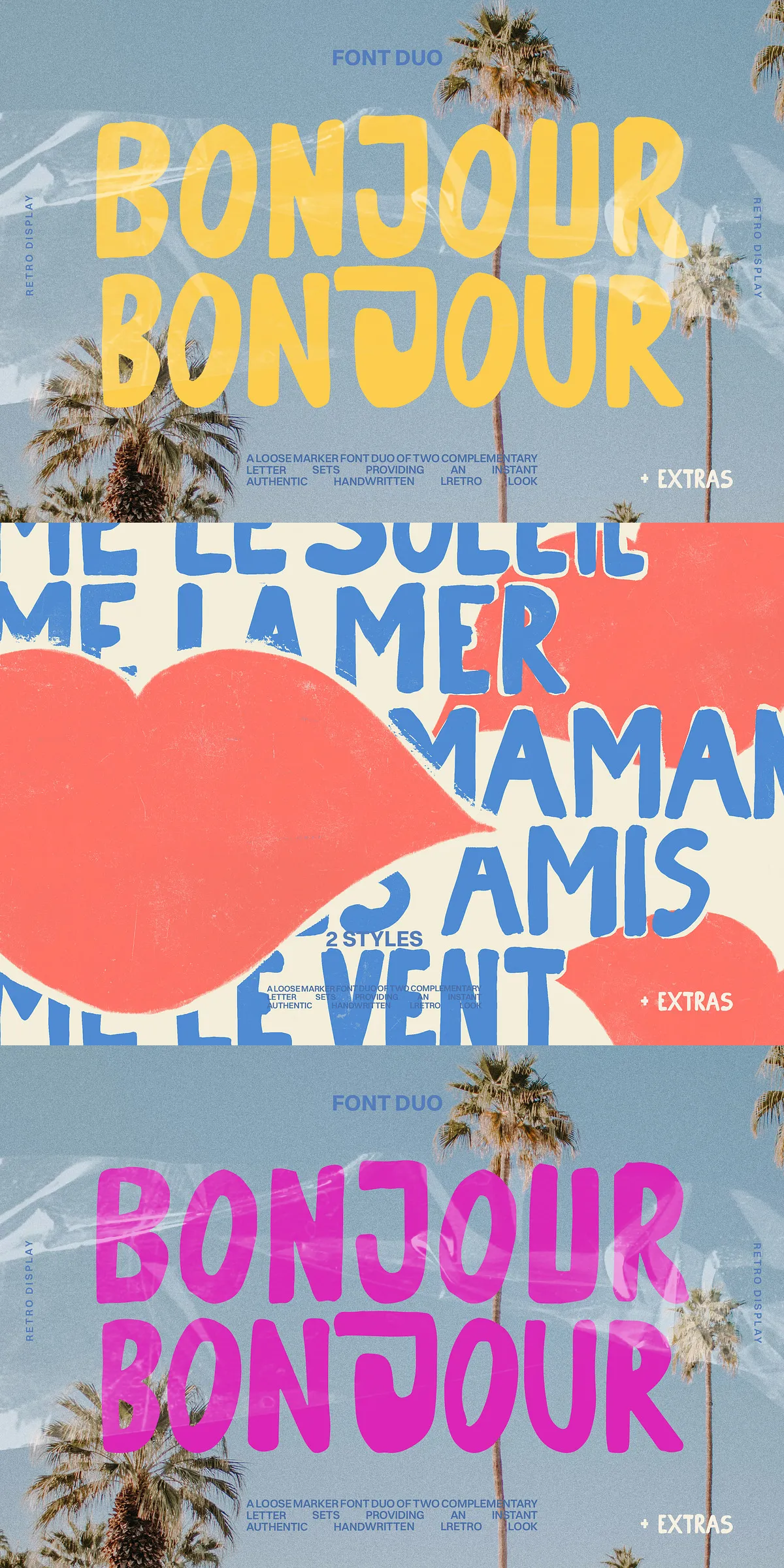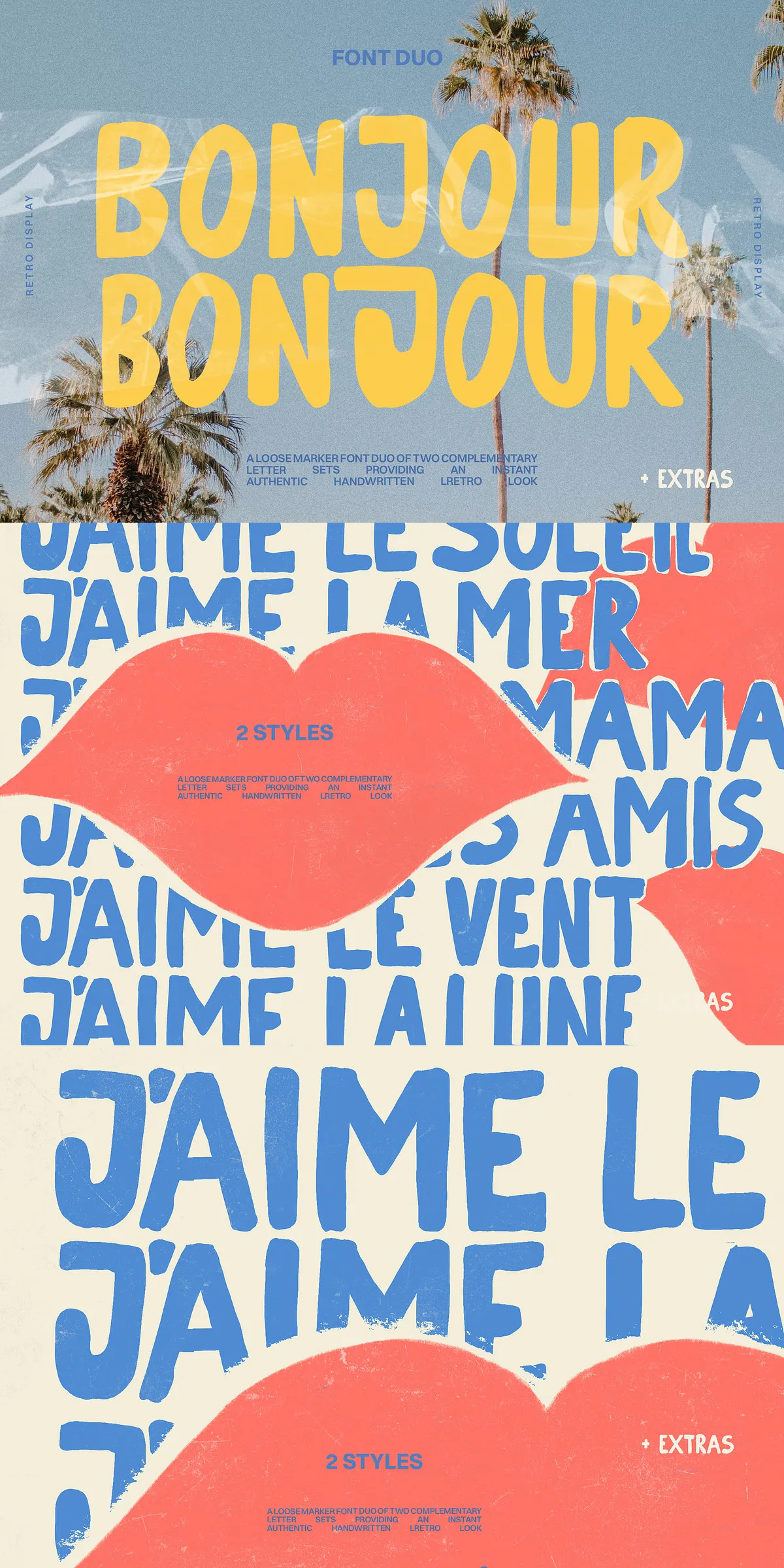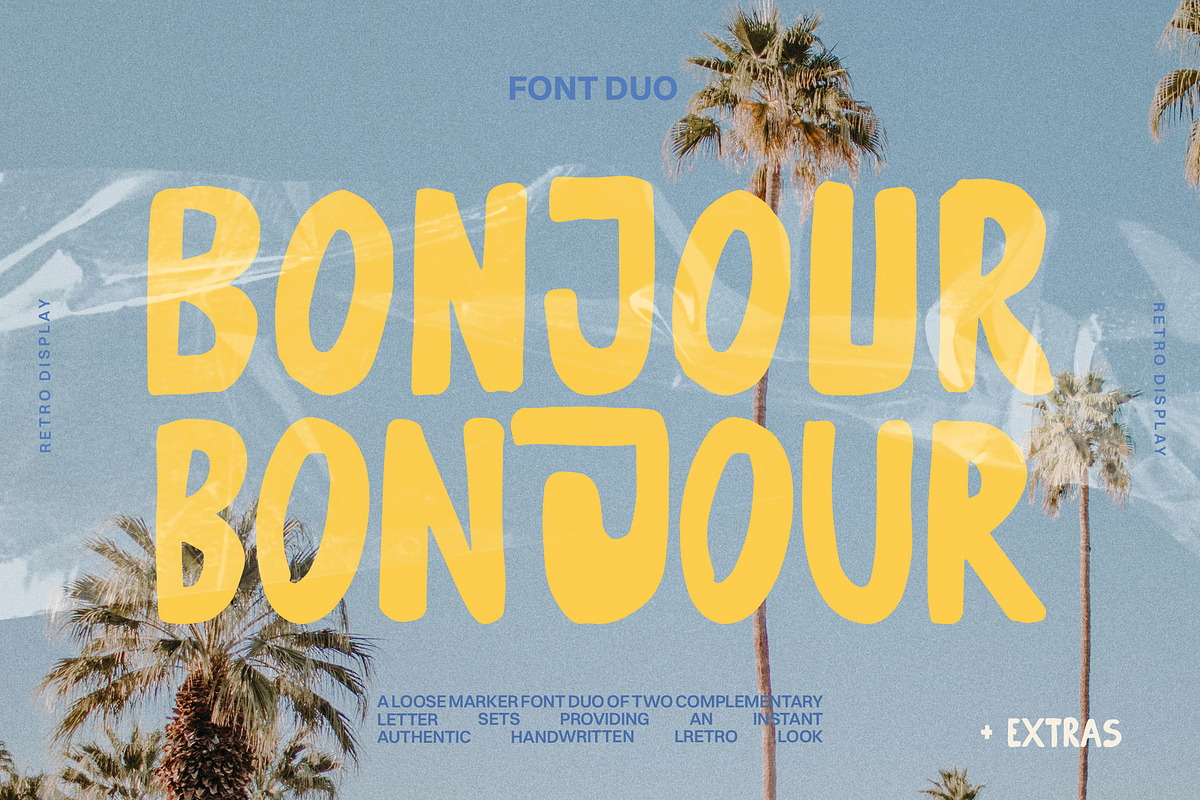
Handmade Retro Marker Font Duo
Ready to infuse your designs with instant personality and that unmistakable ‘handmade’ charm? Meet Bonjour & Bonjour — a vibrant, all-caps marker font duo crafted to transform any text into authentic, eye-catching hand-lettering. Born from a love of expressive typography and creative spontaneity, this font duo is engineered for designers who crave that instantly trendy, effortlessly cool vibe — no skills required.
Whether you’re designing a bold concert poster, launching a fashion brand, creating social media content, or crafting a fun T-shirt design, Bonjour & Bonjour delivers a bold, confident look that turns heads. Its dynamic strokes and playful imperfections mimic the real feel of a marker on paper — messy where it should be, expressive where it counts — giving your work a human, authentic touch that machine-made fonts can’t replicate.
Why Bonjour & Bonjour Stands Out: The Power of Two
This isn’t just one font — it’s a duo built for maximum versatility. You get two complementary faces:
• Bonjour.otf: The bold, expressive primary font, ideal for large headlines and dominant branding elements.
• Monsieur.otf: The slightly refined yet still playful secondary font, great for subheadings, complementary text, or intricate lettering combinations.
Use them separately for contrast, or mix and match them in the same design to create unique, never-repeating lettering textures. Whether you’re layering fonts, spacing words dynamically, or adding decorative elements, the combination gives you endless creative options — all in minutes.
Effortless Creativity, Maximum Impact
Bonjour & Bonjour isn’t just about aesthetics — it’s about speed, simplicity, and smart design workflow. No need to spend hours mastering calligraphy. With a single click, you can achieve a hand-lettered masterpiece that looks professional, trendy, and full of soul.
These extras aren’t just fluff — they’re tools to help you build cohesive, engaging visuals in seconds. Add them as backgrounds, bullet points, or decorative borders to enhance your message and make your content pop.
Perfect for: High-Vibe, Creative Projects
Bonjour & Bonjour thrives in environments that demand energy, individuality, and visual punch. Use it for:
• Fashion Branding & Apparel Design – Stand out on the racks with catchy, hand-lettered labels and logo treatments.
• Poster & Event Graphics – Make flyers, concert posters, and festival announcements unforgettable.
• Social Media Content – Create bold, shareable posts for Instagram, TikTok, and Facebook that demand attention.
• Funky Ads & Marketing Campaigns – Add humor, flair, and personality to digital ads and promotional materials.
Every project you touch gains a touch of fun, authenticity, and modern flair — the kind that feels alive, not static.
Bonjour & Bonjour is more than a font. It’s a creative attitude. It’s the confidence to say, “This isn’t just text — it’s a statement.” Whether you’re a designer, content creator, small business owner, or brand strategist, this duo empowers you to express your vision with boldness and joy.